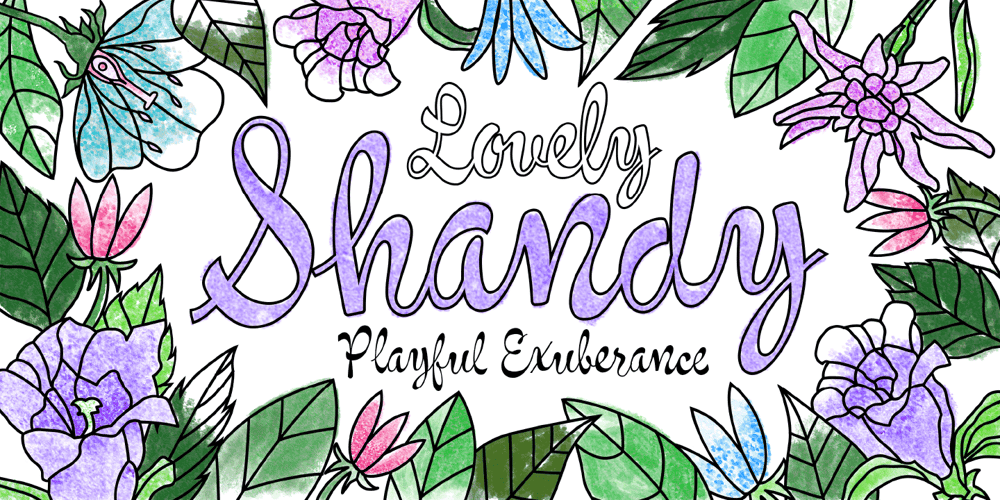
Shandy BF Font Family was designed by John Bomparte and published by Bomparte’s Fonts. Shandy BF contains 1 styles and family package options. Shandy is a cheerful, free-spirited font that dances jauntily along an undulating baseline. Like Gene Kelly merrily cavorting through that rain-soaked street, in the famous dance scene from Singin’ in the Rain. Curiously, it’s got the liveliness of a bouncy brush script, with some elements of a robust Copperplate-style script, that appear to have been defined by a funhouse carnival mirror. In order to promote variety, no two letters are identical within most occurrences of typical lowercase double-letter pairings (bb, dd, ee, ll, nn, oo, tt, etc.) To enhance your typography, Shandy features many automatic OpenType ligatures, beginning and terminal lowercase forms and Stylistic Alternates for letters E, M and N which are accessible in OpenType-capable applications. Suitable for Branding, Logos, Product Packaging, T-shirts, Magazine headlines, Fashion Glossies, and Food Advertising to name a few arenas.